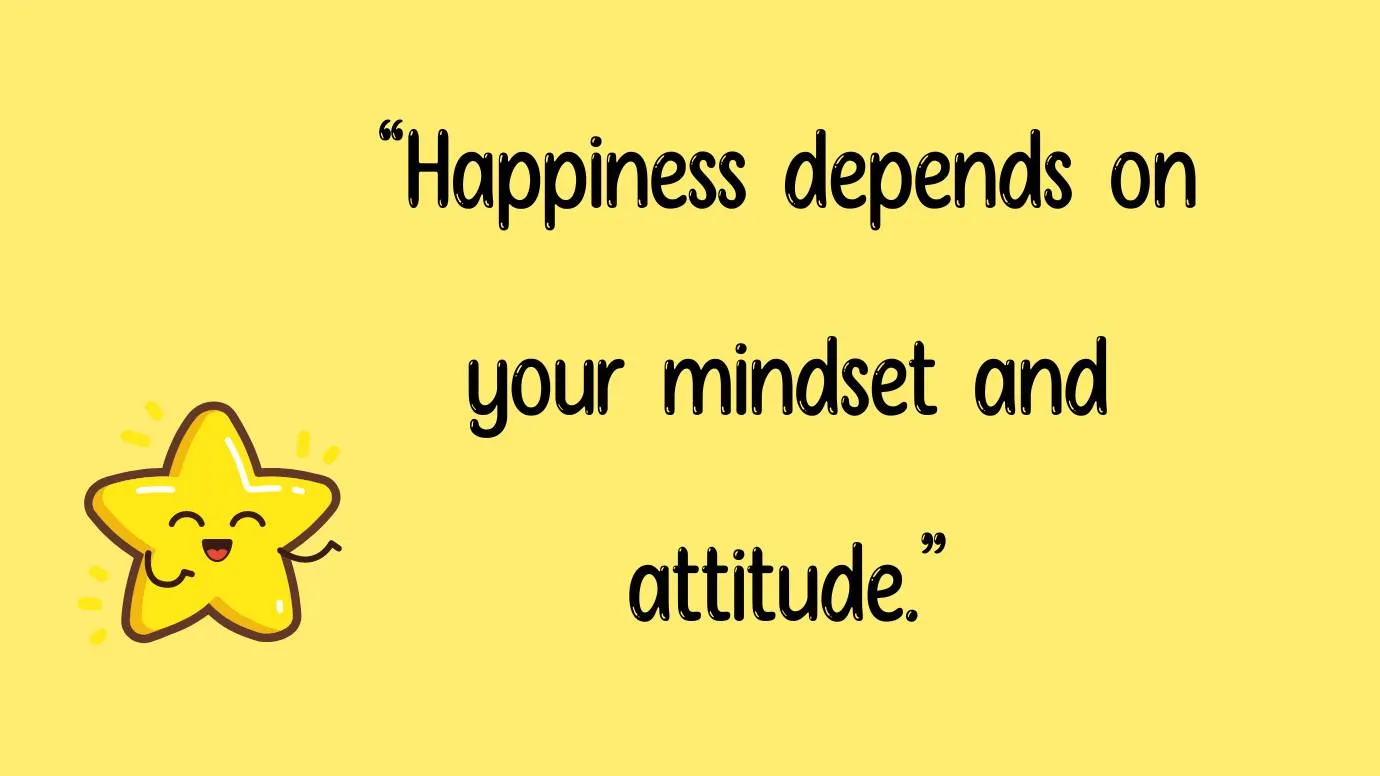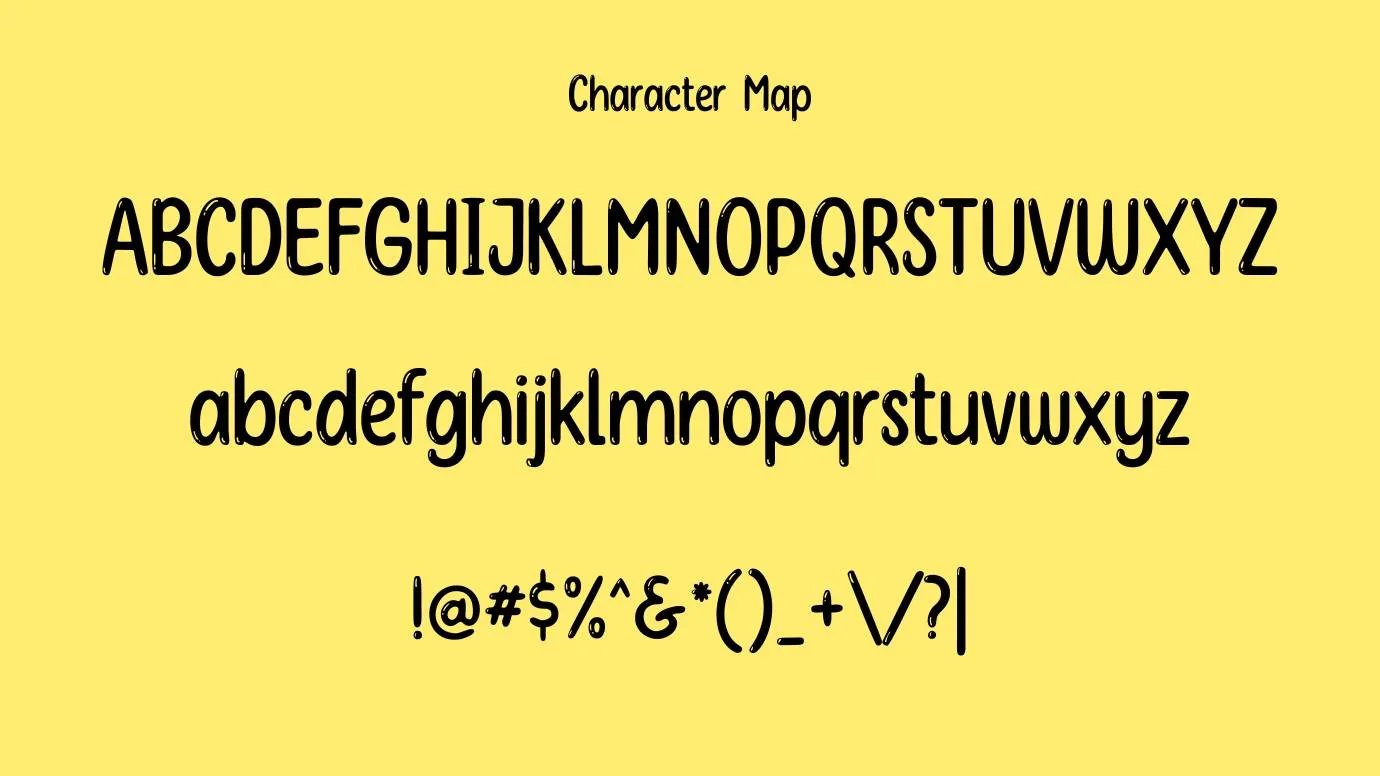
Shiny Flakes Font is a fancy typeface that comes in beautiful weight that may be used to create a variety of styles. This typeface’s TTF file has 264 glyphs with a 1024 units per em resolution.
Basic Latin, Phonetic Extensions, spacing modification in Letters, numeric forms, generalized punctuation marks, are included in its characters. Numerous foreign languages, including Greek, Zulu, French, and Indian, are supported by this font.
There’s no question that it’s an eye-catching font, and it’s highly readable style. Your design can stand out through this style in a variety of ways.
Few Examples of Shiny Flakes Font Usage
This incredible typeface may be used to create names for various channels, stores, cafes, and hotels. This typeface is appropriate for use in creating fantastic logo designs, poster canvases, banners, and designs for social media posts. It is ideal for creating headings and titles.
The typeface is appropriate for use in image design and user experience, t-shirt designs, and pamphlet layout designs. The fantastic texture can be used for a variety of movies, videos, gaming, and other related design projects.
Creating themes and thumbnails for design purposes is a joy with it. You can choose this imaginary texture for the design of product packaging, articles, generic reports, and online book covers.
There are a lot of businesses that use this typeface. Various institutions used this typeface to create their logos. This typeface can be used for a wide range of projects, including eBooks, posters, banners, brochure layouts, and much more.
A lot of graphic designers, used this attractive typeface for many projects, including in fashion magazines, newspapers, ads, and articles. My opinion is that it is beneficial for branding, stickers, graphics on t-shirts, and print materials.
You can use the typeface to make unique designs, covers, store titles, and logos. Also, the textual style is idealized for branding ventures, housewares decor, and item bundling.
Final Thoughts
Shiny Flakes Font is a vibrant and eye-catching typeface that adds a playful and energetic touch to designs. With its bold and rounded letterforms, this font is well-suited for projects that aim to create a sense of fun and excitement. Shiny Flakes Font’s shiny and glossy appearance gives it a unique and distinctive look, making it a great choice for digital graphics, posters, and children’s designs. Whether used in print or online, Shiny Flakes Font brings a touch of whimsy and liveliness to any creative endeavor.